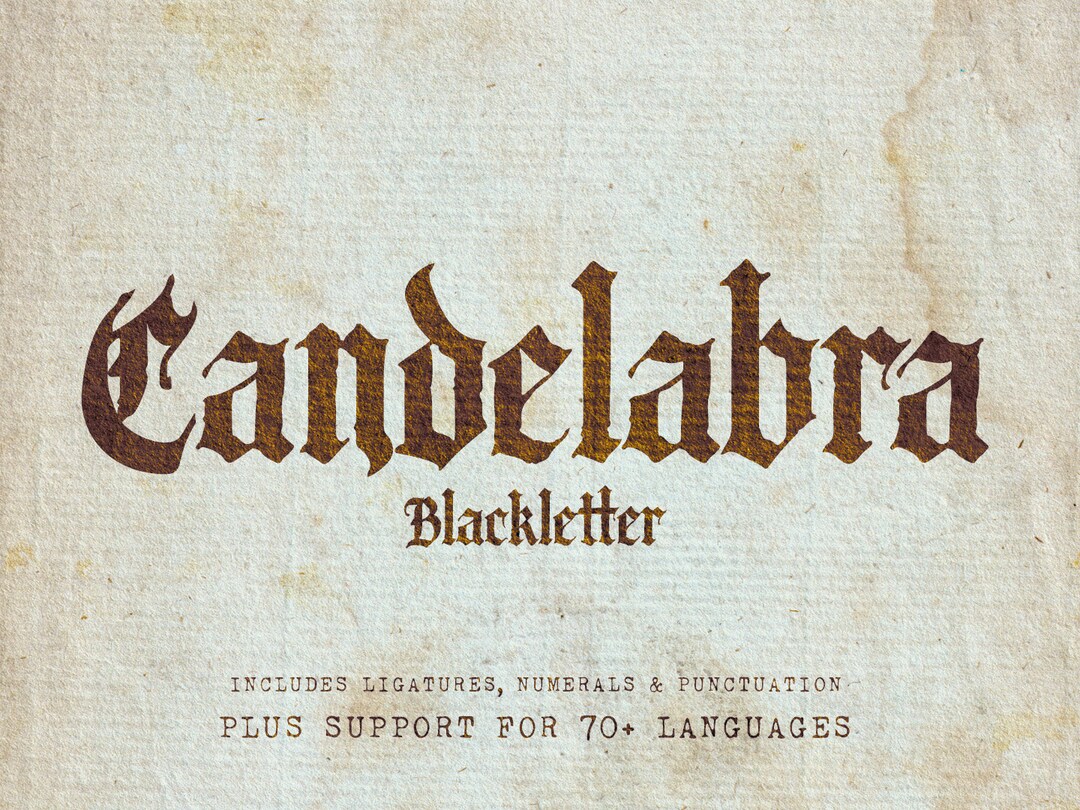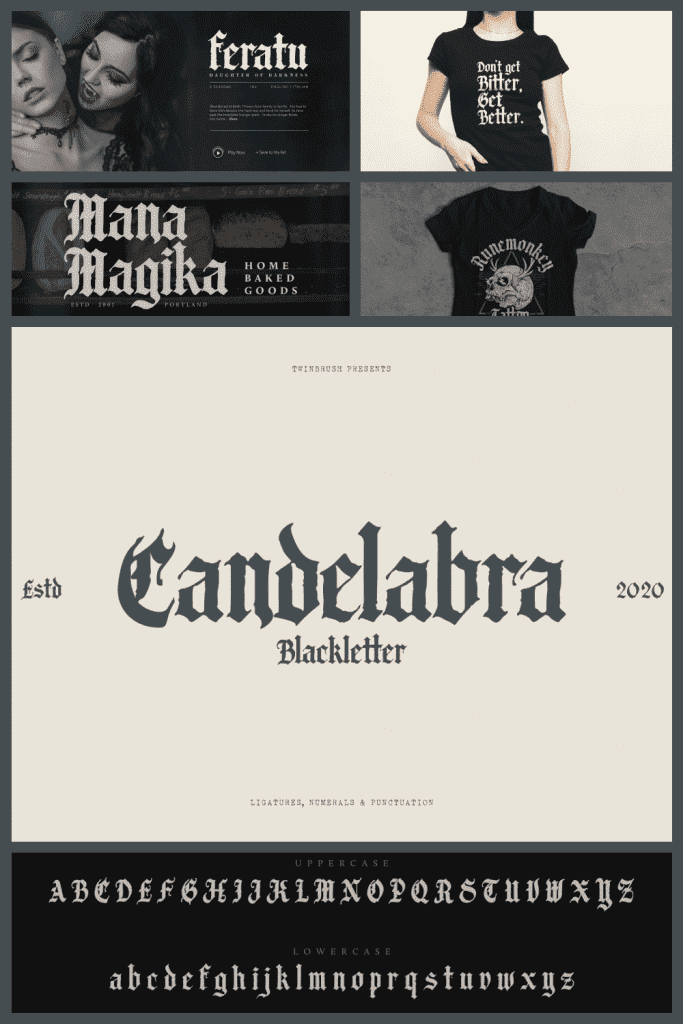
Candelabra Font . Candelabra is a gothic blackletter font full of. Drawing inspiration from the middle ages, candelabra is a gothic blackletter font with multilingual support for 70. Candelabra is a blackletter font full of medieval mysticism and age. Thousands of designers (famous or not) use the image font detection system to find a font or similar free fonts from an image. Candelabra is a blackletter font full of medieval mysticism and age. An ideal choice for tattoo studios, band logos and album art,. An ideal choice for tattoo studios, band logos and album art, trendy fashion apparel, book covers, game design,. Candelabra is an experimental font which is inspired from the candelabra cactus. Candelabra is a blackletter font full of medieval mysticism and age. An ideal choice for tattoo studios, band logos and album art, trendy fashion apparel, book covers, game design,.
Candelabra is a blackletter font full of medieval mysticism and age. Drawing inspiration from the middle ages, candelabra is a gothic blackletter font with multilingual support for 70. Candelabra is a blackletter font full of medieval mysticism and age. Candelabra is a gothic blackletter font full of. Candelabra is a blackletter font full of medieval mysticism and age. An ideal choice for tattoo studios, band logos and album art, trendy fashion apparel, book covers, game design,. An ideal choice for tattoo studios, band logos and album art, trendy fashion apparel, book covers, game design,. An ideal choice for tattoo studios, band logos and album art,. Candelabra is an experimental font which is inspired from the candelabra cactus. Thousands of designers (famous or not) use the image font detection system to find a font or similar free fonts from an image.
Candelabra Font Candelabra is a blackletter font full of medieval mysticism and age. Thousands of designers (famous or not) use the image font detection system to find a font or similar free fonts from an image. An ideal choice for tattoo studios, band logos and album art,. Candelabra is a gothic blackletter font full of. An ideal choice for tattoo studios, band logos and album art, trendy fashion apparel, book covers, game design,. Candelabra is a blackletter font full of medieval mysticism and age. Candelabra is an experimental font which is inspired from the candelabra cactus. Candelabra is a blackletter font full of medieval mysticism and age. An ideal choice for tattoo studios, band logos and album art, trendy fashion apparel, book covers, game design,. Candelabra is a blackletter font full of medieval mysticism and age. Drawing inspiration from the middle ages, candelabra is a gothic blackletter font with multilingual support for 70.